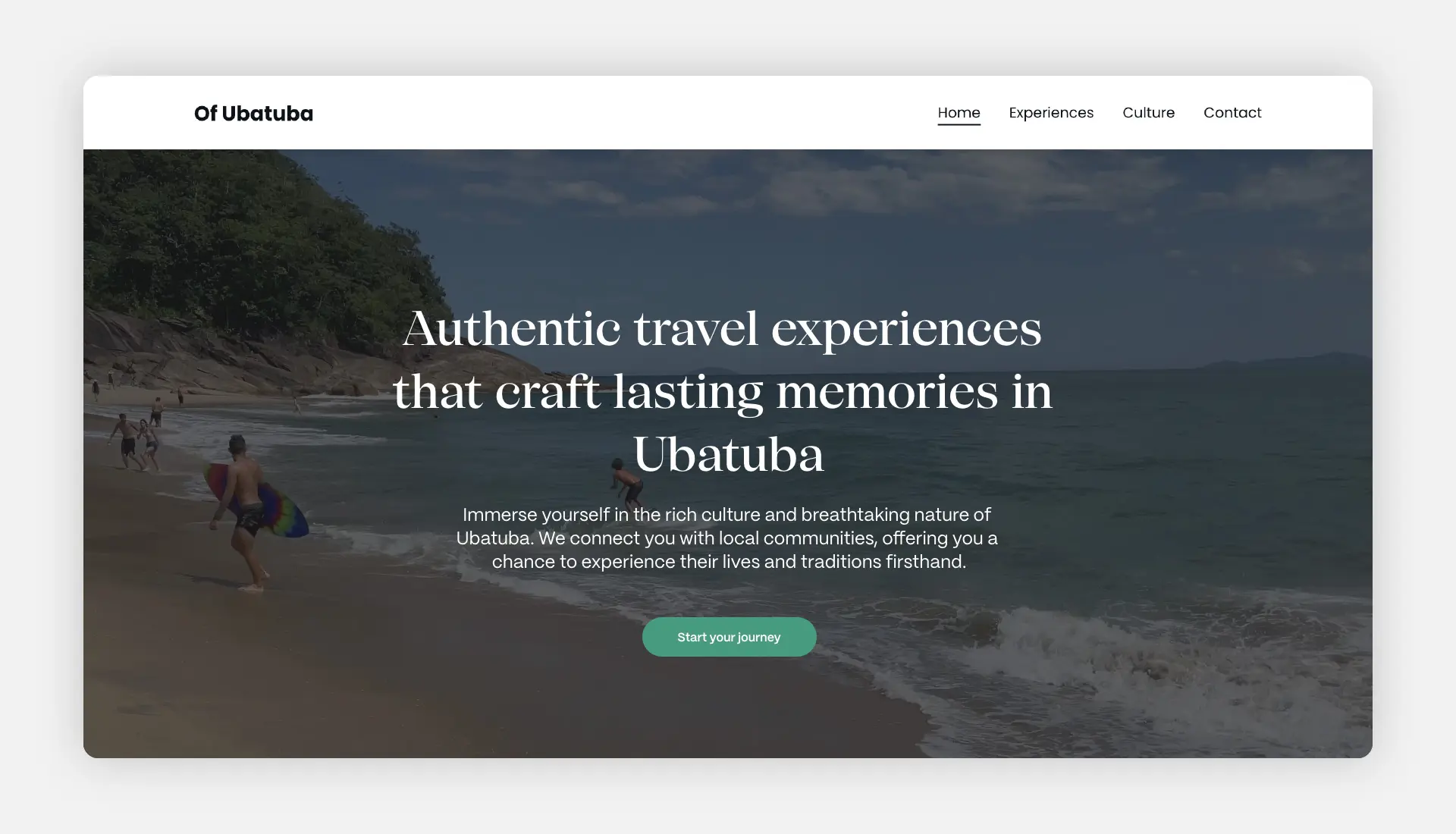
Of Ubatuba — Curated Travel Experiences in Ubatuba, São Paulo
Font: SFT Schrifted Serif (Display Medium).
Use case: Website typography.
About the Project:
Of Ubatuba curates authentic travel experiences in Ubatuba, São Paulo, blending nature, culture, and adventure. Their website pairs SFT Schrifted Serif with PP Mori, creating a refined yet modern look. SFT Schrifted Serif is used for headlines, adding warmth and character, while PP Mori, a clean sans-serif, balances the composition with a contemporary and structured feel. Together, they reflect the brand’s premium and immersive approach to travel.
Why SFT Schrifted Serif?
Typography plays a key role in evoking emotions and setting expectations. SFT Schrifted Serif brings sophistication and depth to storytelling, while PP Mori ensures readability and a fresh, modern touch. This combination enhances the visual contrast across the website, making the experience both inviting and informative.